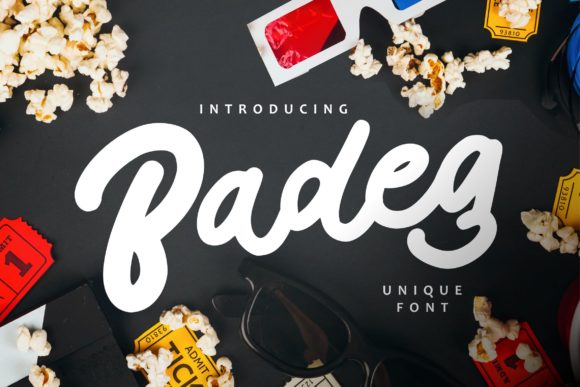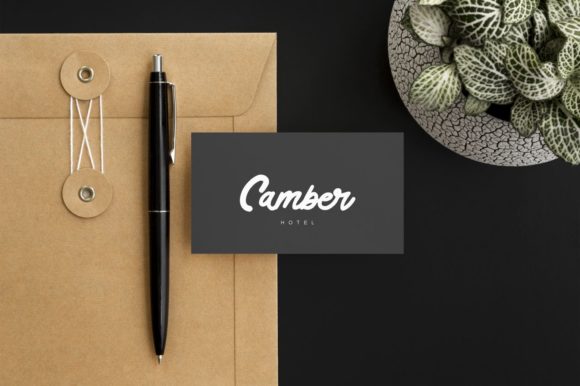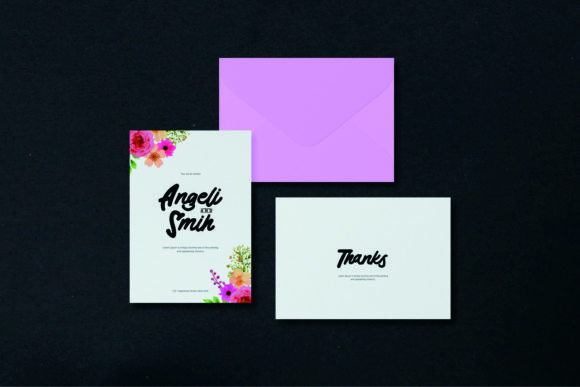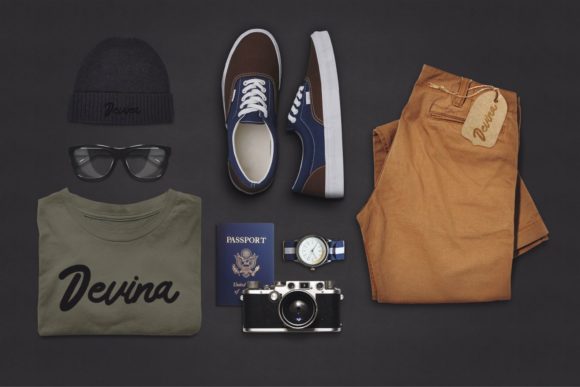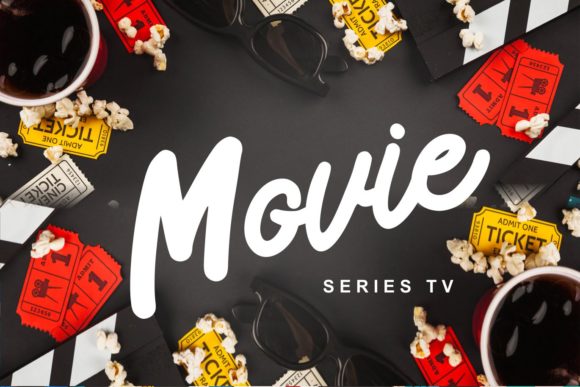
HomeScript FontsBadeg Font Script Fonts Badeg Font FacebookXPinterestWhatsApp Badeg Font Poster 2 Badeg Font Poster 3 Badeg Font Poster 4 Badeg Font Poster 5 About Badeg Font Badeg is a chunky and unique script that will turn any design project into a true standout! DOWNLOAD NOW People also explored Barbai Font Bummill Font Fantasy Script 14 Font Evening City Font Air Soft Valentine Font Science Doodle Font Happiness Font Exbert Font 317 0 TagsBadeg Font Previous articleBafalia FontNext articleReghina Font LEAVE A REPLY Cancel reply Comment: Please enter your comment! Name:* Please enter your name here Email:* You have entered an incorrect email address! Please enter your email address here Website: Save my name, email, and website in this browser for the next time I comment. Personal Use Free Kitsor Rauttie Personal Use Free Read more about this font Samureix Personal Use Free Read more about this font Nickainley Personal Use Free Read more about this font Child Writing Free Personal Use Free Read more about this font BLOG Free Fonts Risk: Why Free Fonts Can Be Dangerous for Designers Free Fonts Risk: Why Free Fonts Can Be Dangerous for Designers Using free fonts is a common practice in web and graphic design. However, the... Elegant Wedding Invitation Fonts – Handwritten & Script Fonts Best Fonts for T-Shirt Design – Top 2025 Picks Exploring Font Trends